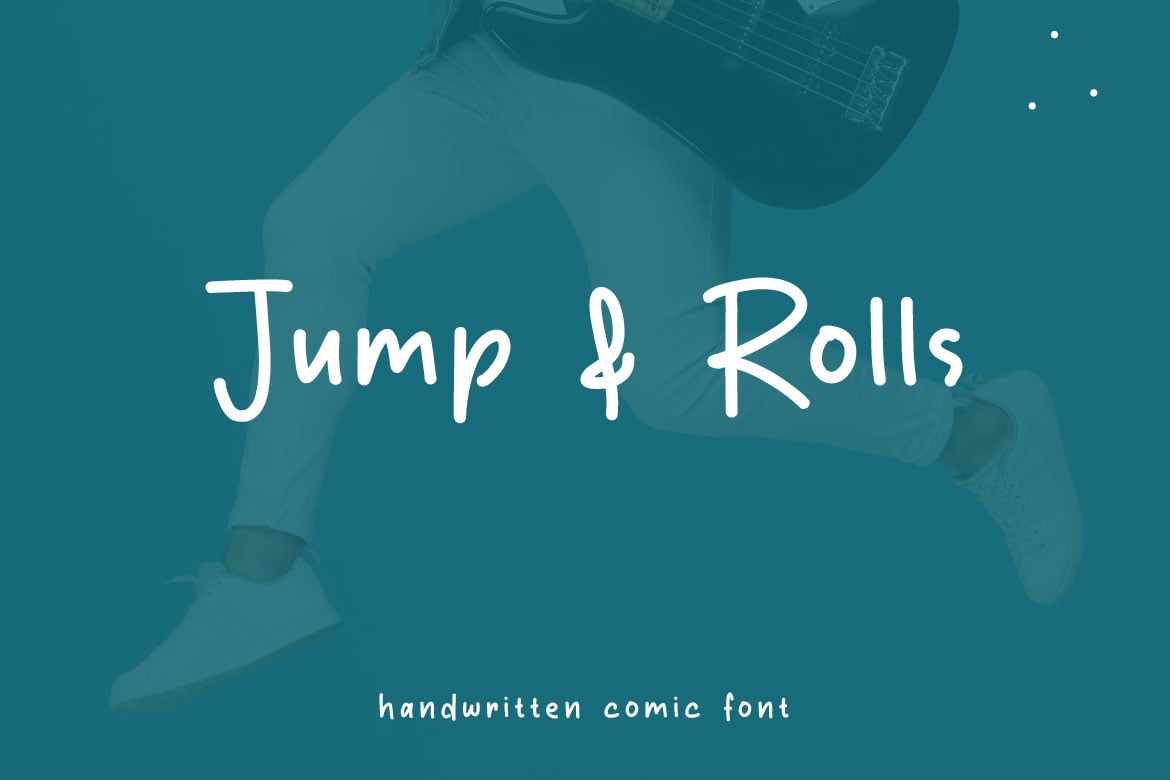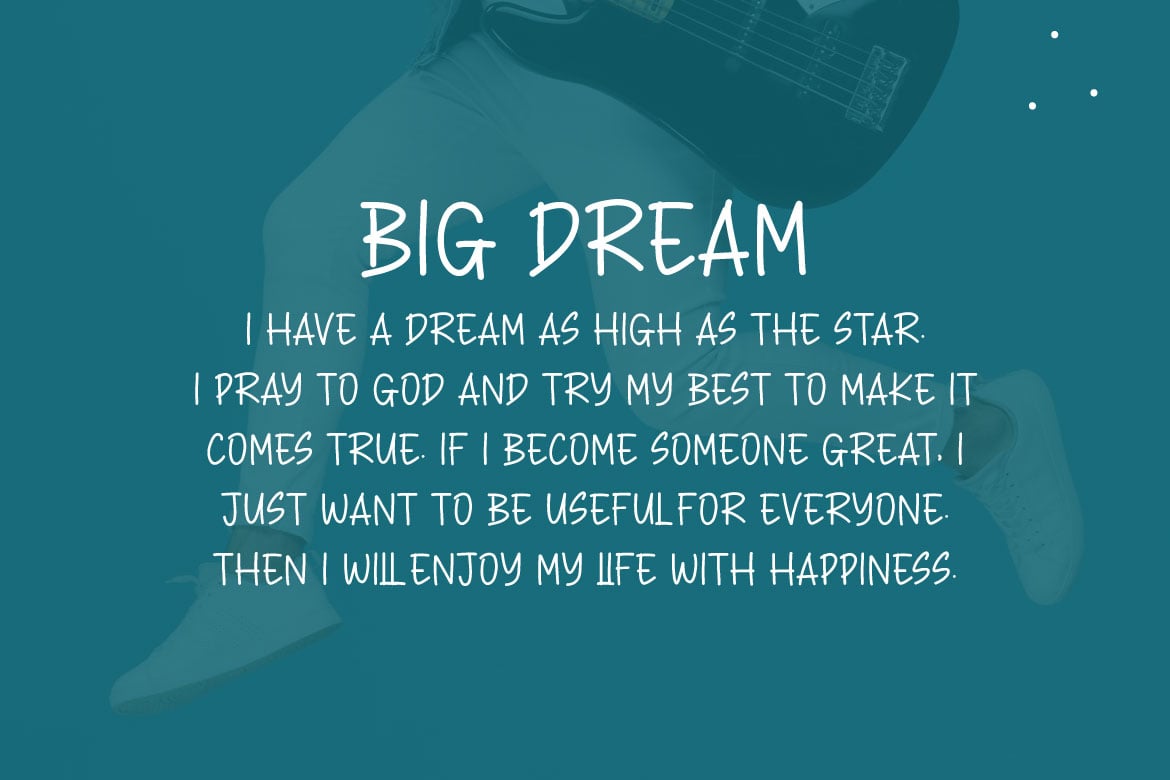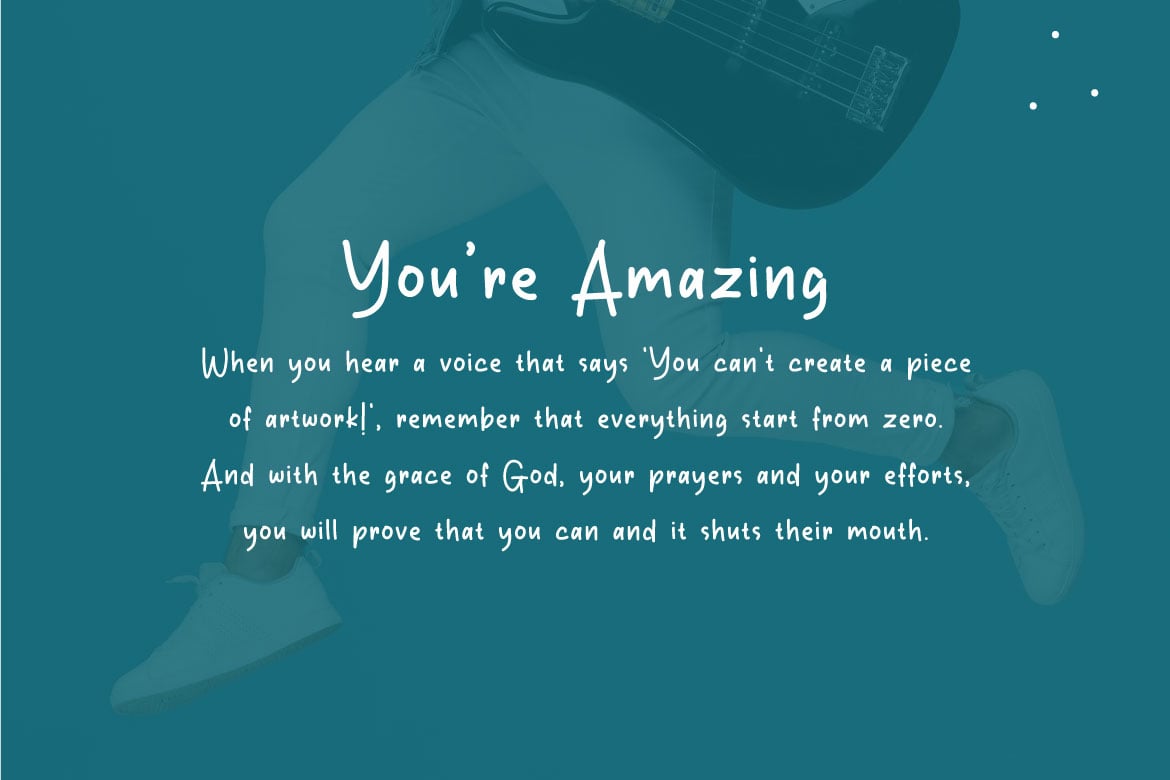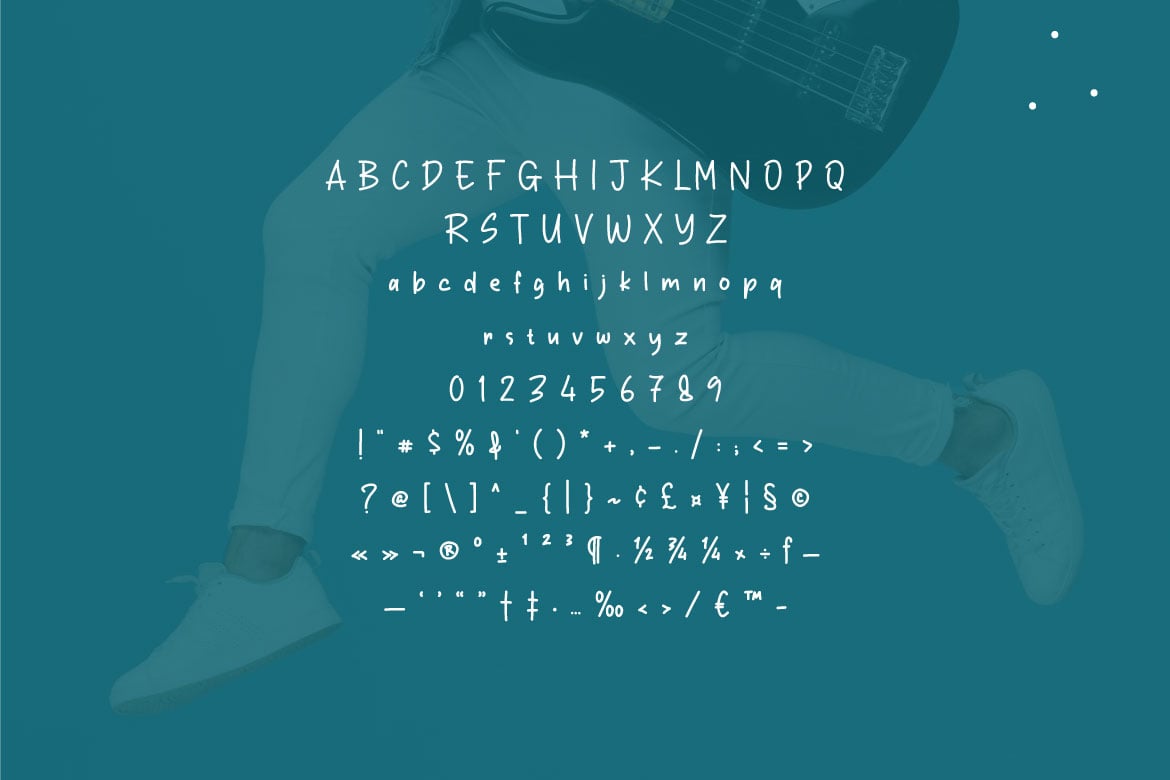
Jump & Rolls – Handwritten Font
Introducing Jump & Rolls – Handwritten Font – a charming and playful handwritten font that brings a touch of warmth and personality to your designs. With its smooth curves and gentle strokes, this font is perfect for adding a friendly, hand-crafted feel to any project.
Whether you’re working on greeting cards, invitations, logos, or social media graphics, Jump & Rolls – Handwritten Font will effortlessly bring your ideas to life. Its cute and whimsical style makes it an ideal choice for children’s products, DIY projects, and creative branding.
Designed with versatility in mind, Jump & Rolls – Handwritten Font includes a full set of uppercase and lowercase letters, numerals, and punctuation marks. It supports multiple languages, making it a great fit for global projects.